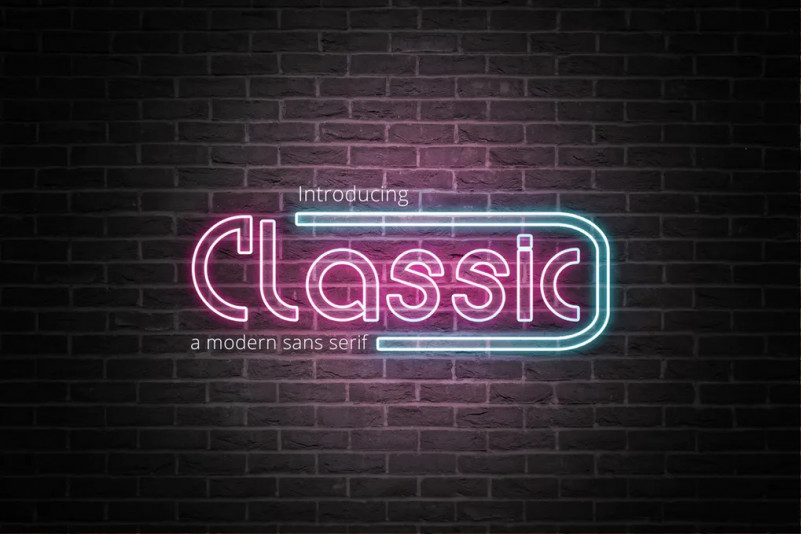
Komplex Font
Komplex Font is a Modern Sans Serif Font Suitable for any graphic designs such as branding materials, t-shirt, print, business cards, logo, poster, t-shirt, photography, quotes, coffee shop, etc.